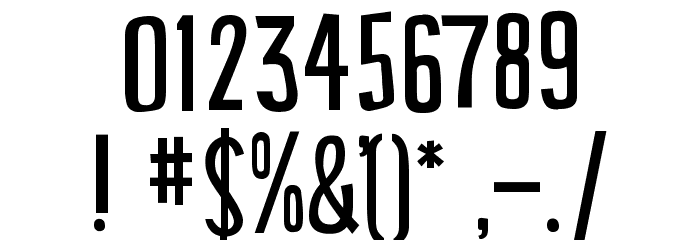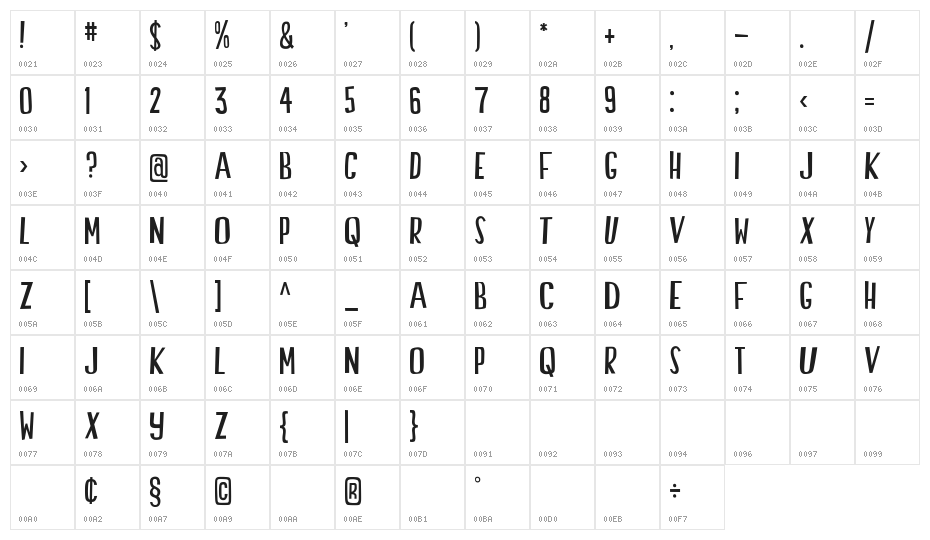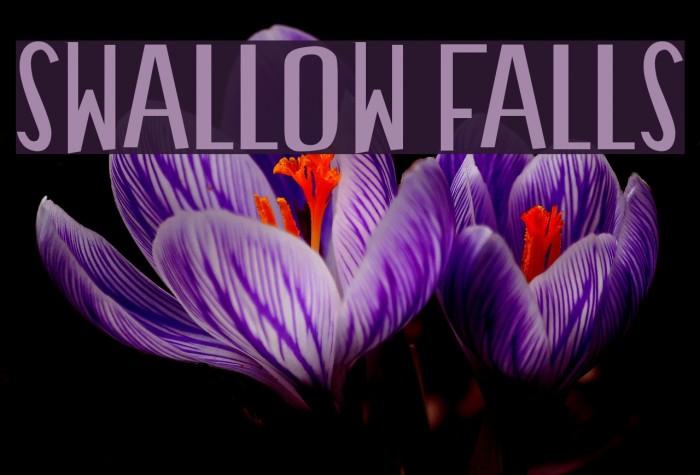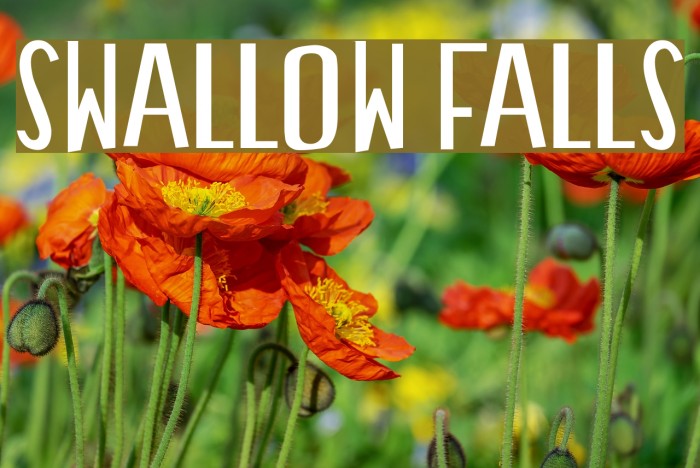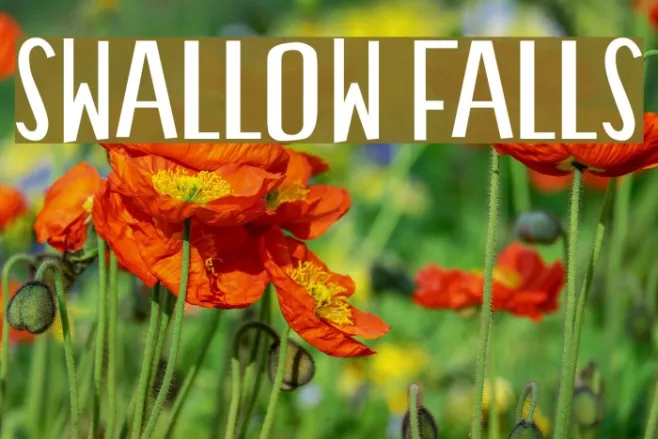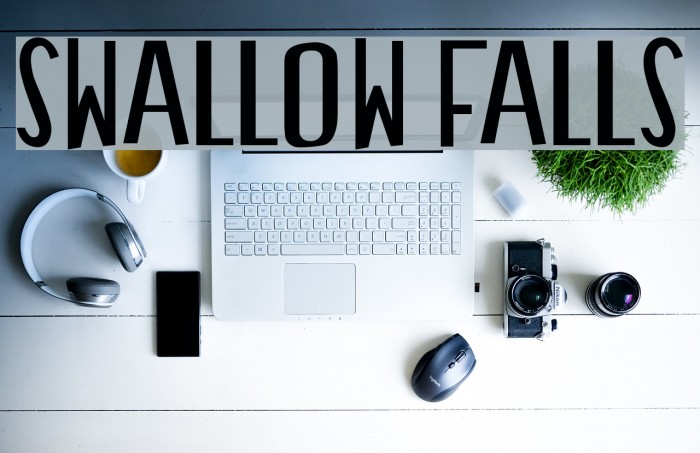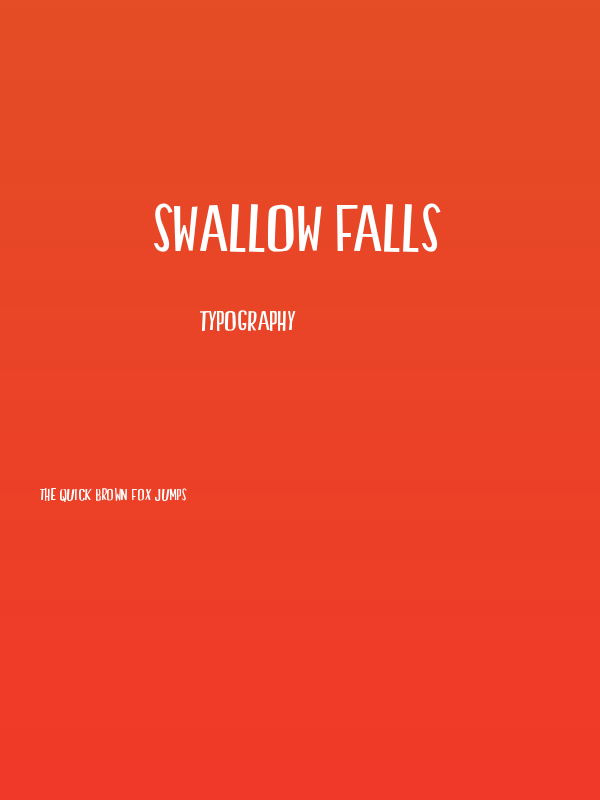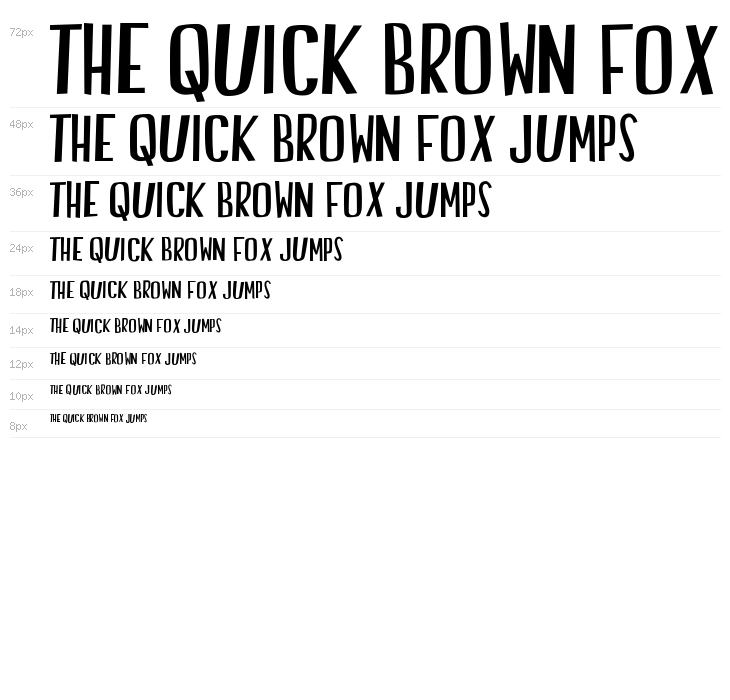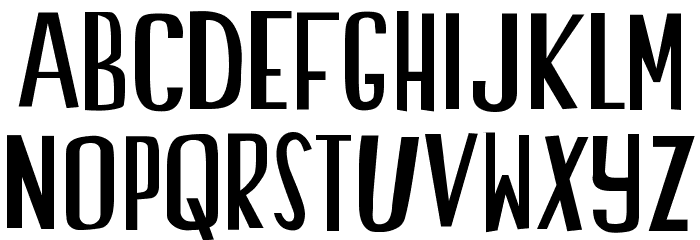
Swallow Falls Font
Swallow Falls Description
This font features a bold and striking design with tall, narrow characters that convey a sense of modernity and elegance. The uppercase letters are particularly elongated, giving them a distinctive appearance that stands out in any context. The lowercase letters maintain a consistent style, complementing the uppercase with a slightly more compact form. Numbers and special characters are designed with the same attention to detail, ensuring uniformity across all elements. The font's clean lines and sharp edges make it ideal for creating impactful headlines and titles.